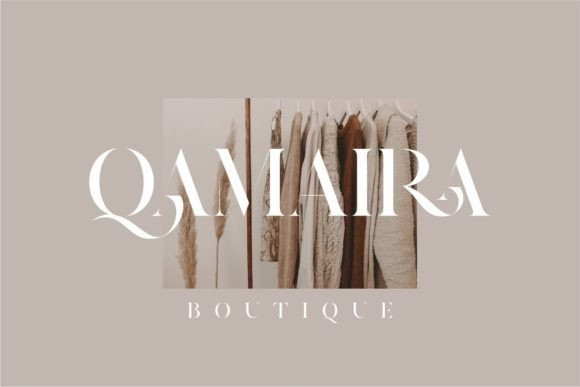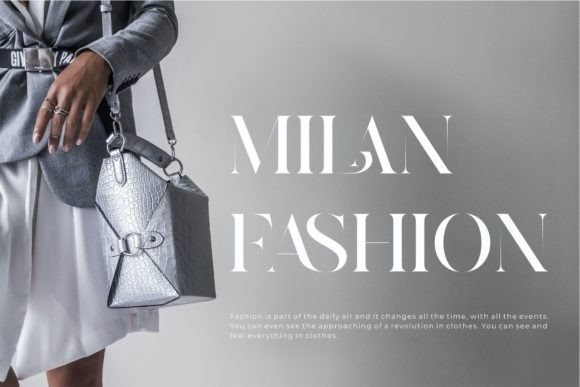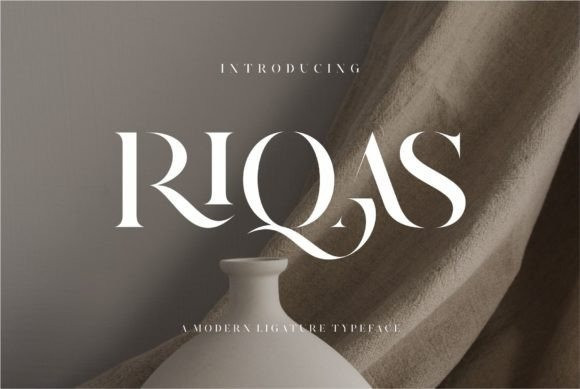
Riqas Font
Riqas Font – Ligature Serif Font is inspired by the famous minimalist logo perfect to design templates, brochures, videos, advertising branding, logos, invitation, layout design, elegant crafting, beauty design, and more.